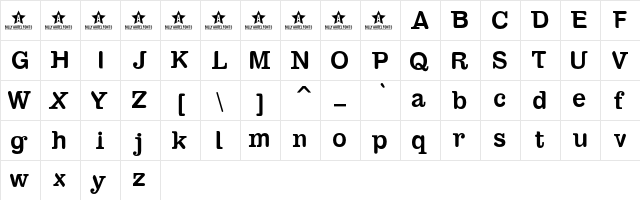
SAMBAHOLLYC Regular
Design Context for SAMBAHOLLYC Typeface
SAMBAHOLLYC is a composed and adaptable typeface that performs quietly and consistently across a wide range of design contexts.